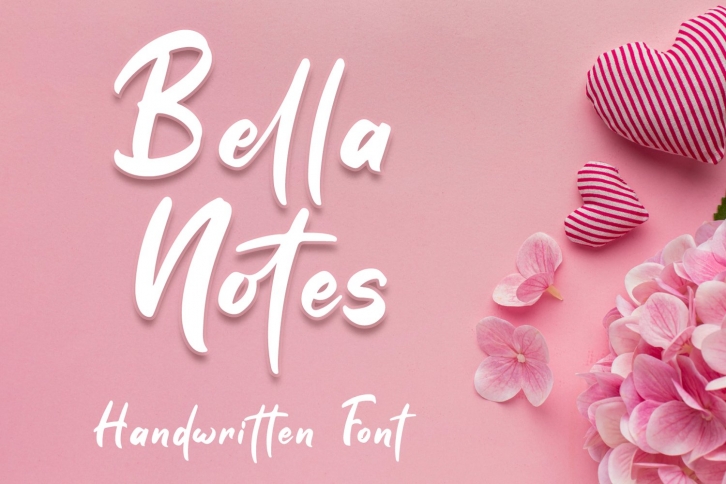
Bella Notes is a great font that was designed by Attype Studio. Imagine the amount of combinations you can create using this font! The archive is 13.15 MB and it was released on December 16, 2020. Bella Notes looks beautiful on wedding invitations, greeting cards, logos, posters, labels, t-shirt designs, logos, business cards and is perfect for use in ink or watercolor works, fashion, magazines, packaging and food menus, children's books and more!